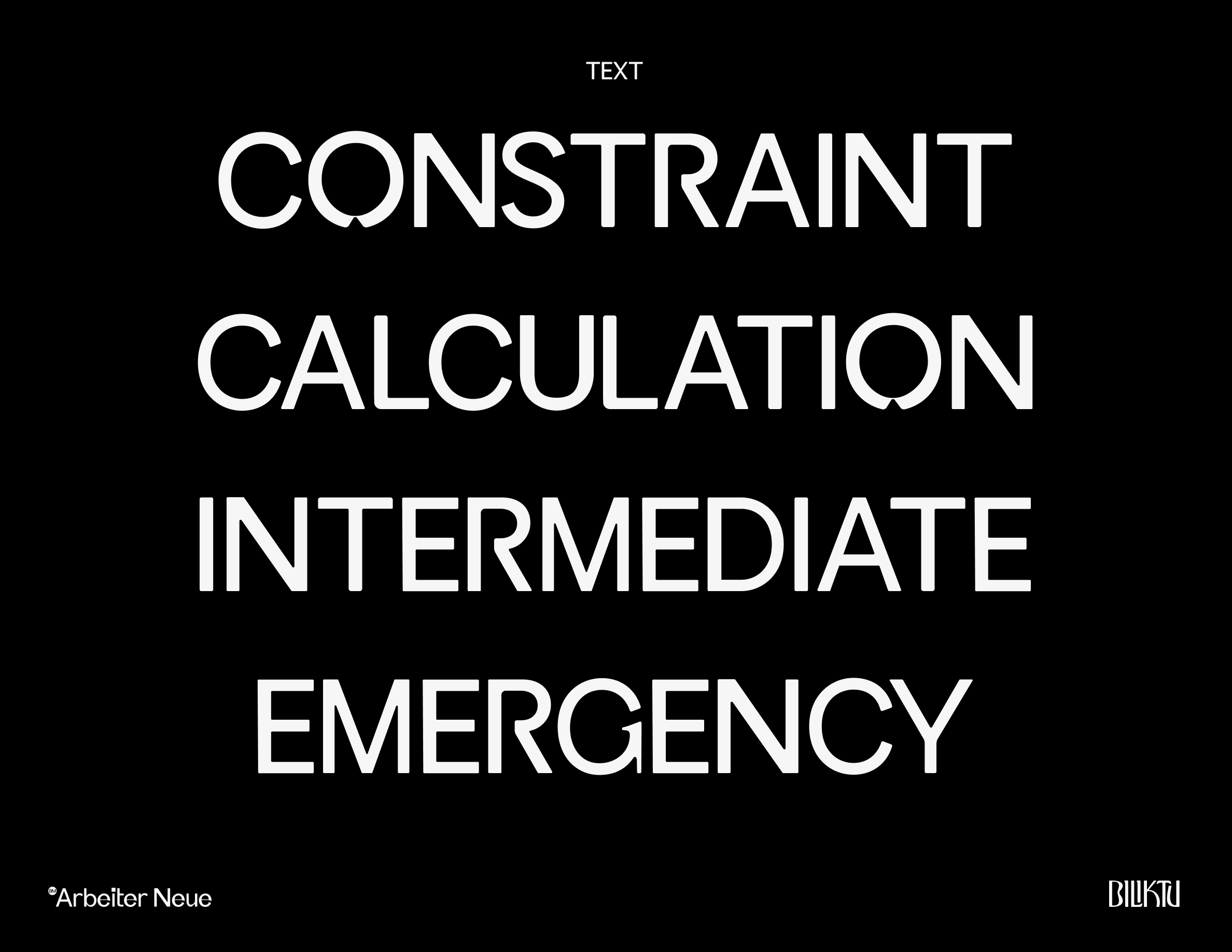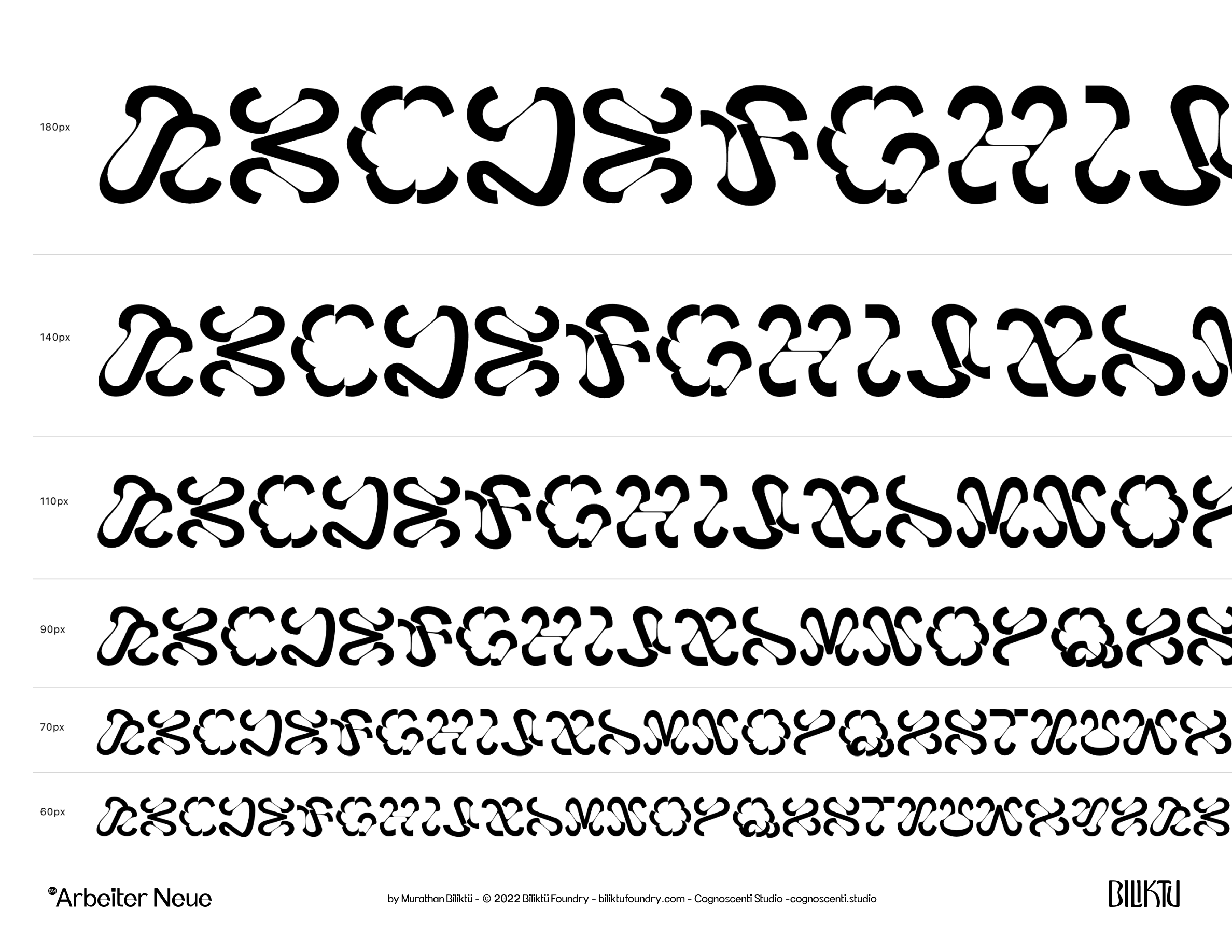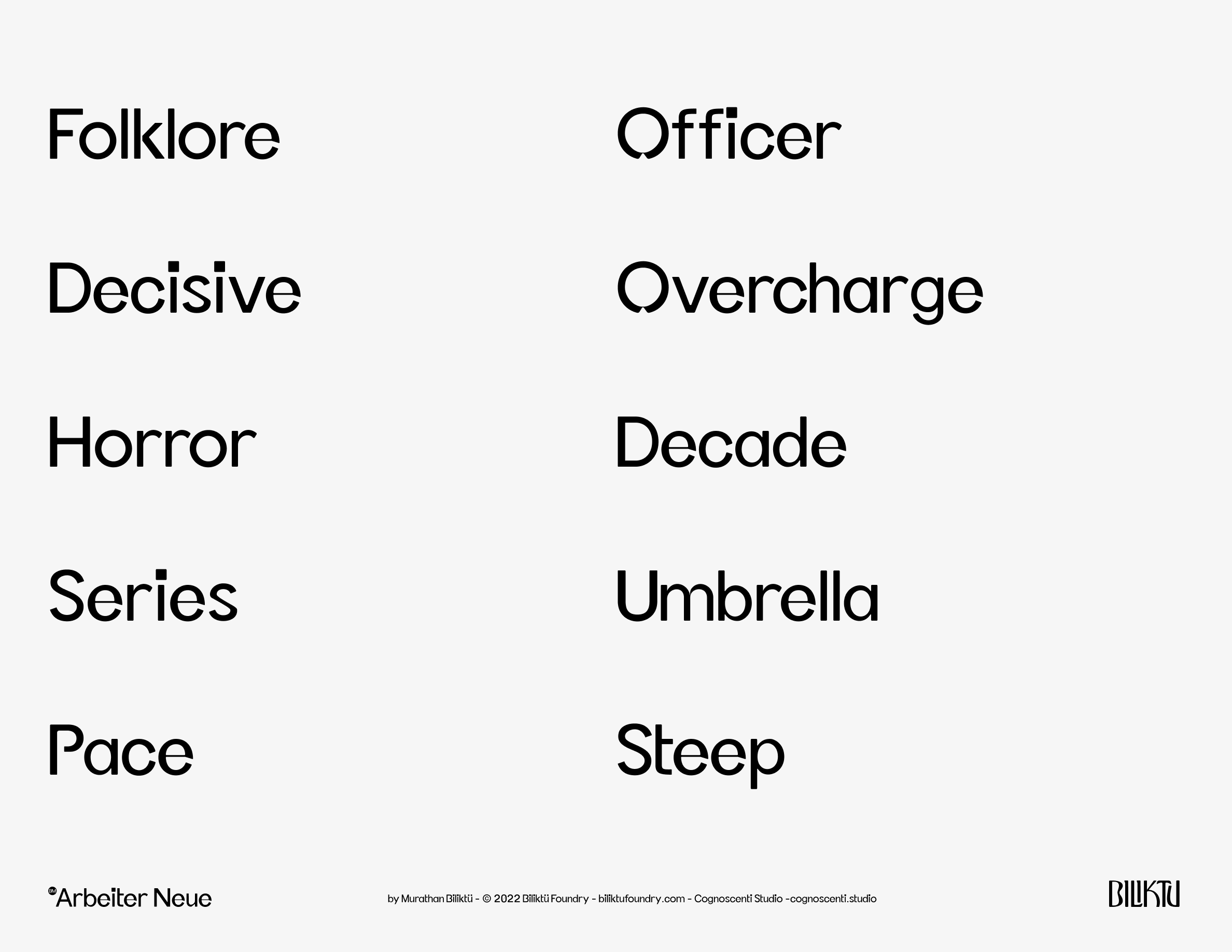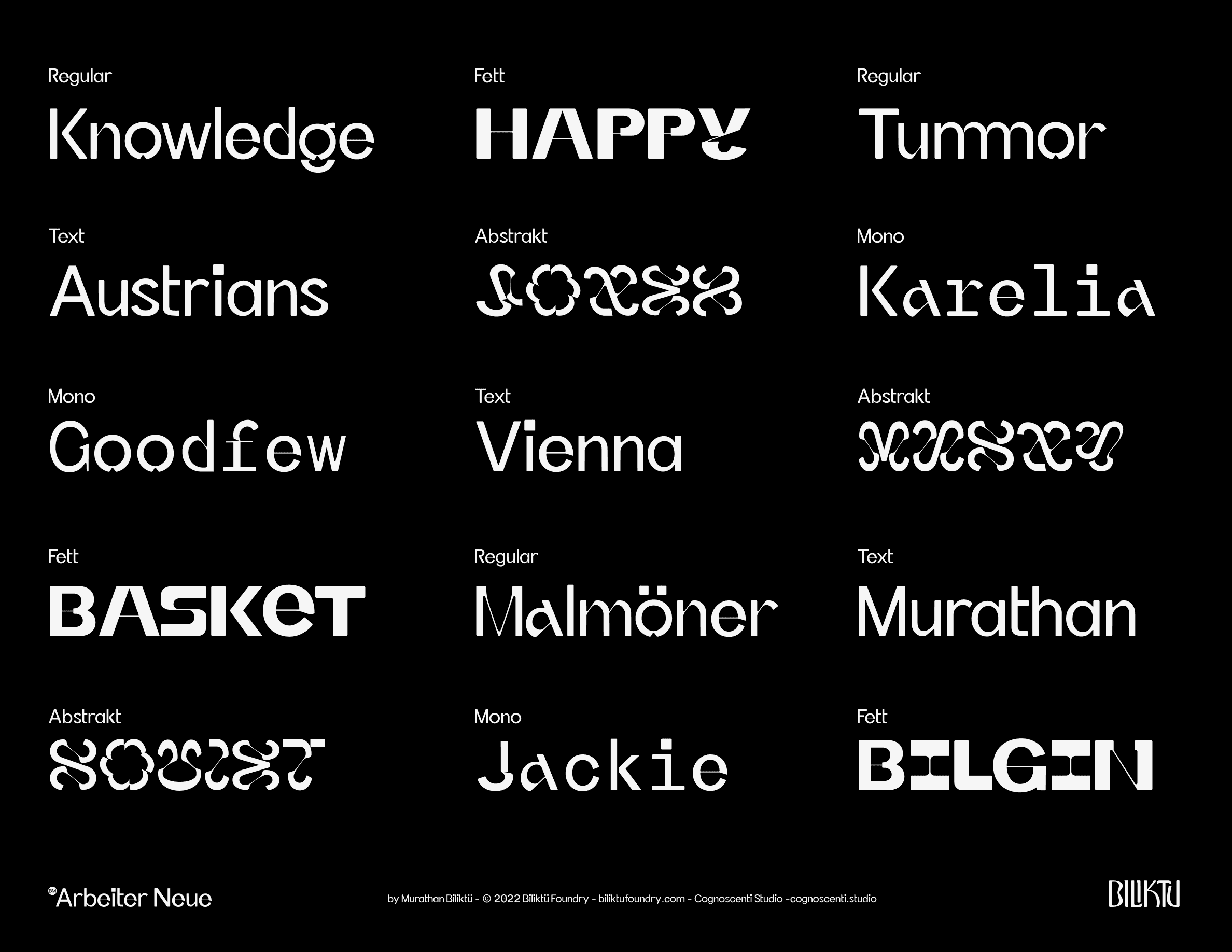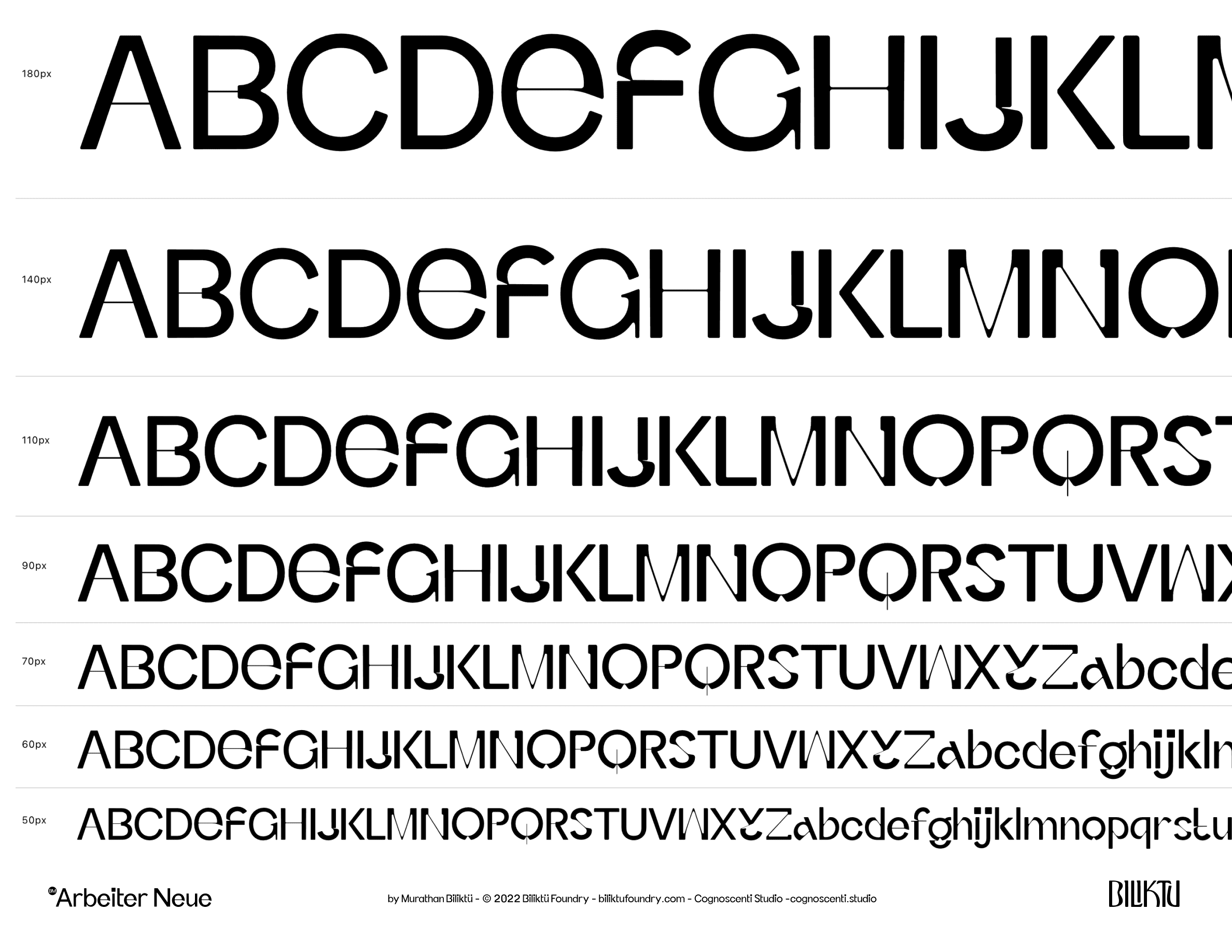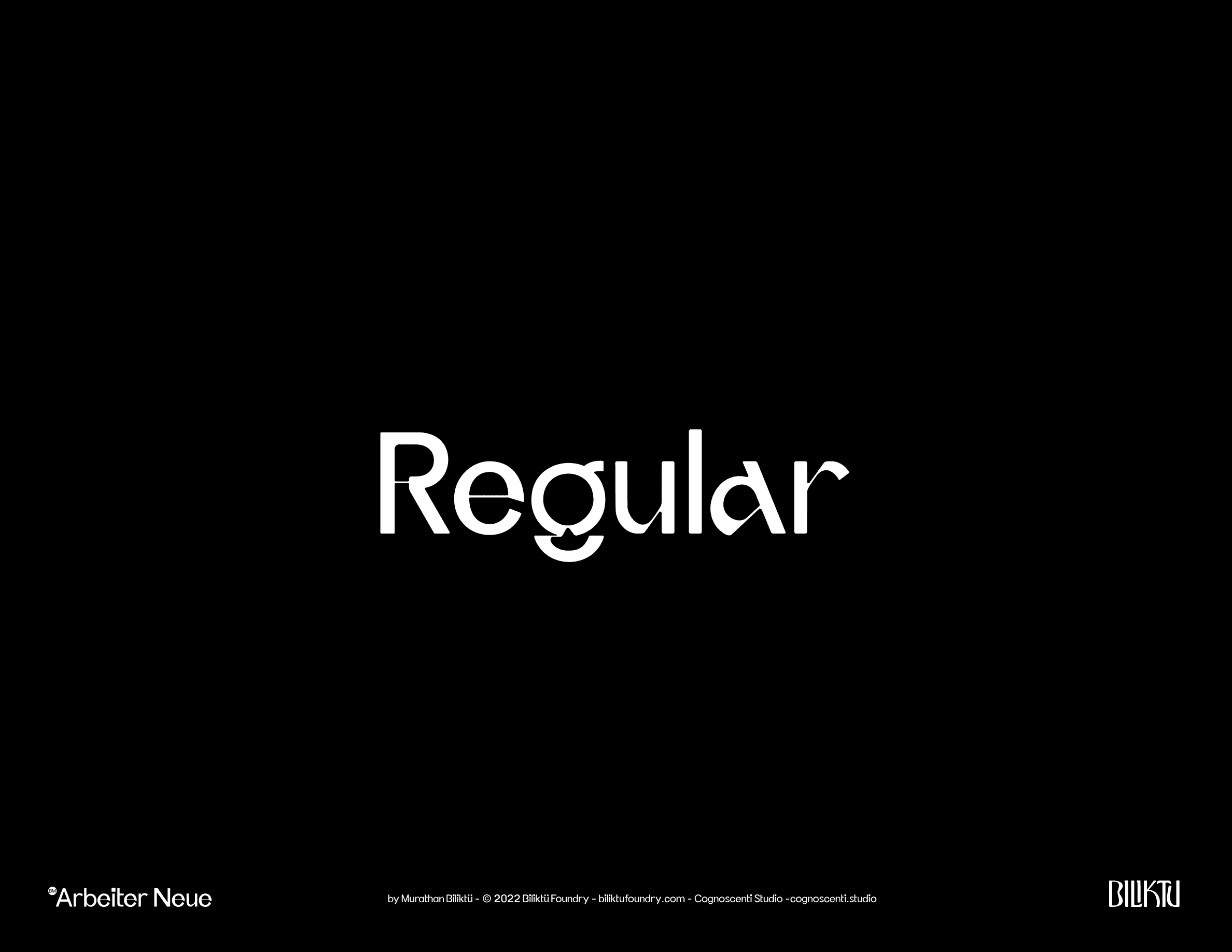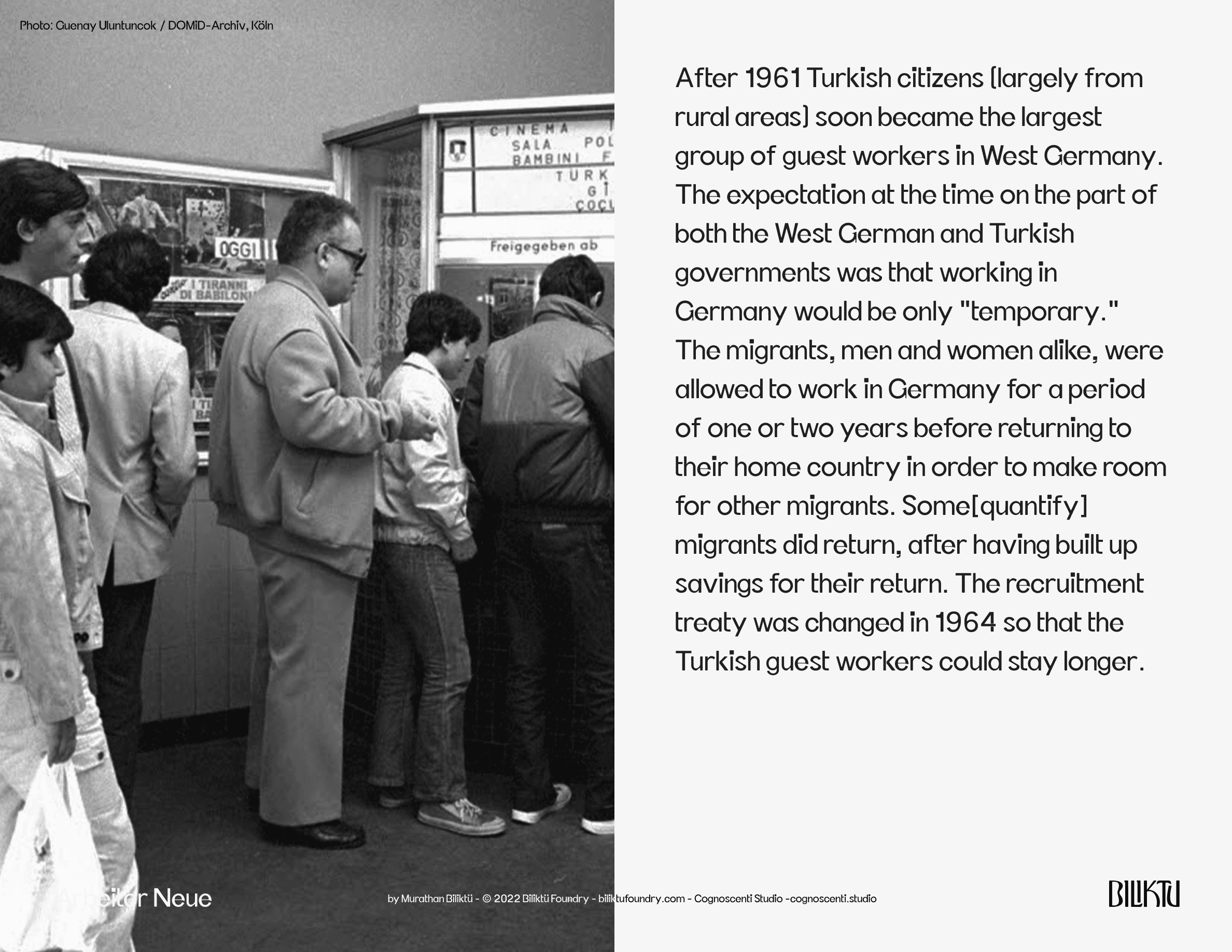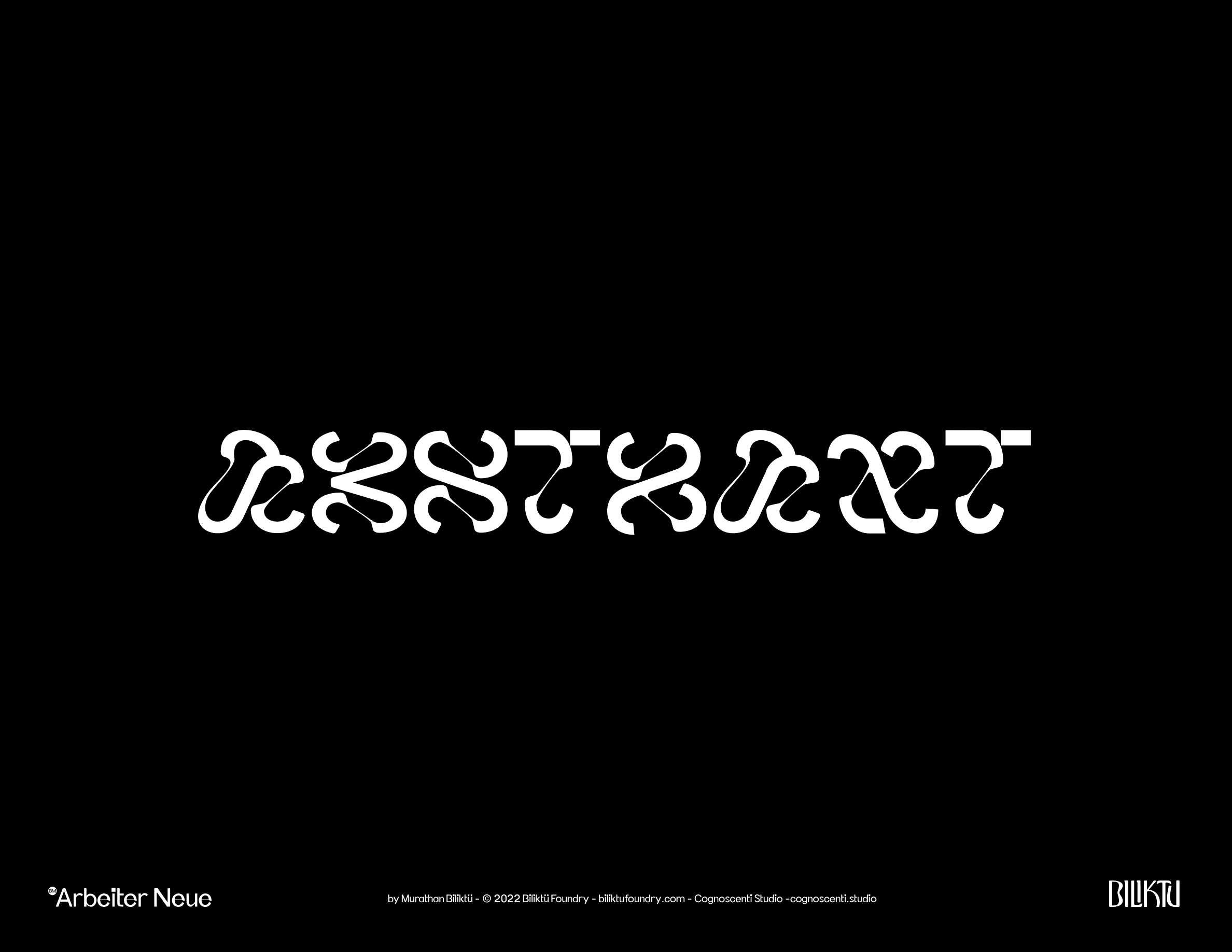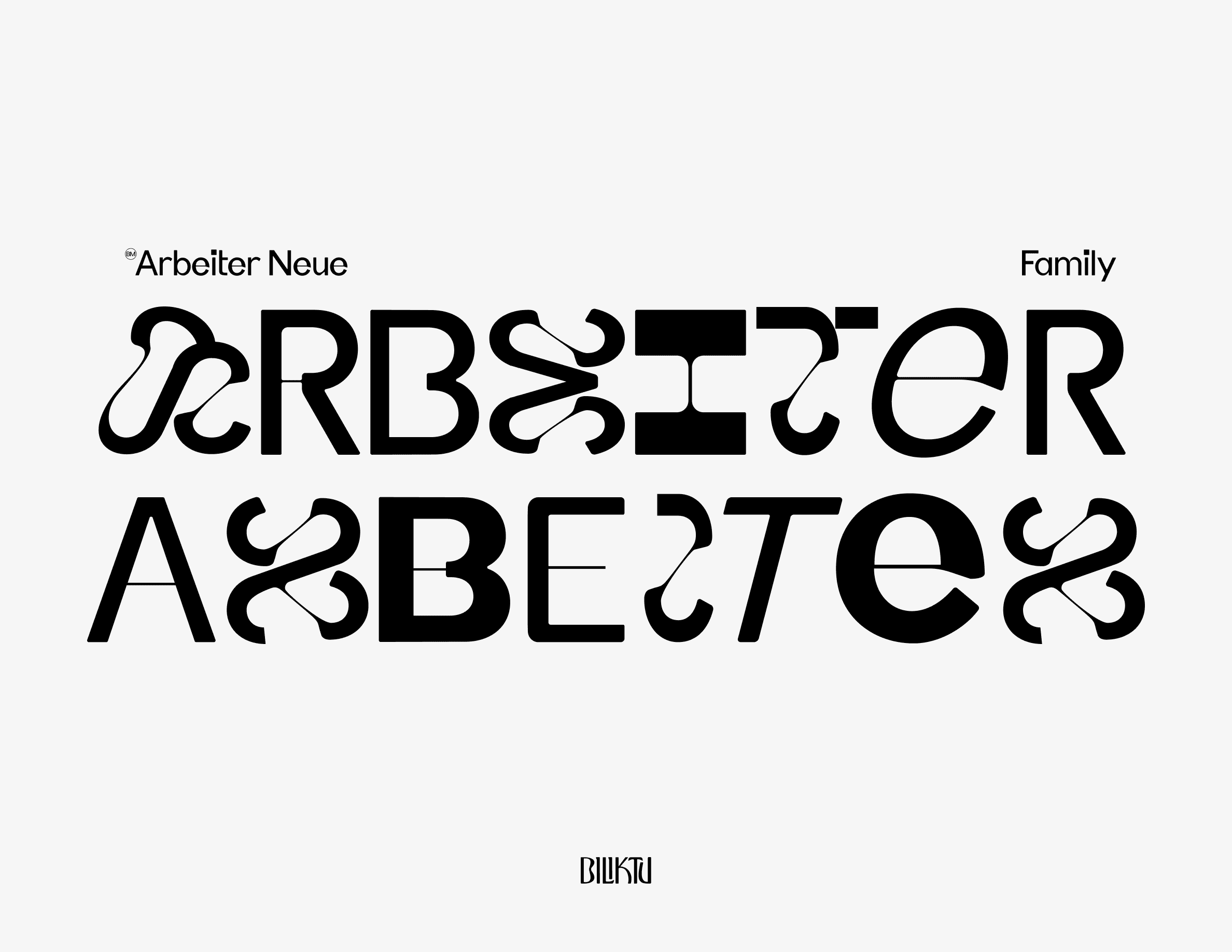
BM Arbeiter Neue font family is inspired by the history of the diaspora of guest workers to Germany in the 1960s. Arbeiter Neue incorporates a variety of forms that are influenced by machinery, pipes, and wires. Arbeiter Neue comes with 5 different styles: Regular, Text, Mono and two unique styles; Fett and Abstrakt.